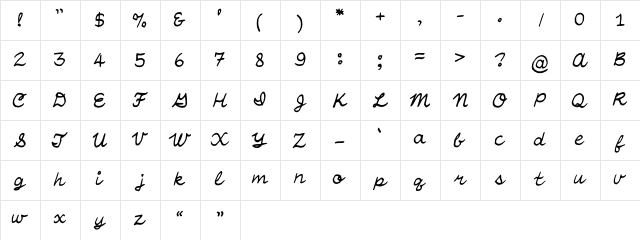
OTF Handwriting Standard Font Preview
OTF Handwriting Standard Standard
Design Context for OTF Handwriting Standard Typeface
OTF Handwriting Standard brings a calligraphic fluidity to the page — its connecting strokes and expressive curves give it an unmistakably human quality.
Font Pairing: Combine OTF Handwriting Standard with a simple geometric sans for maximum contrast — the tension between flowing curves and clean structure is a classic typographic pairing.
Pro Tip: Use OTF Handwriting Standard for short runs of text — names, titles, or taglines. Extended body copy in script faces tires the eye quickly.